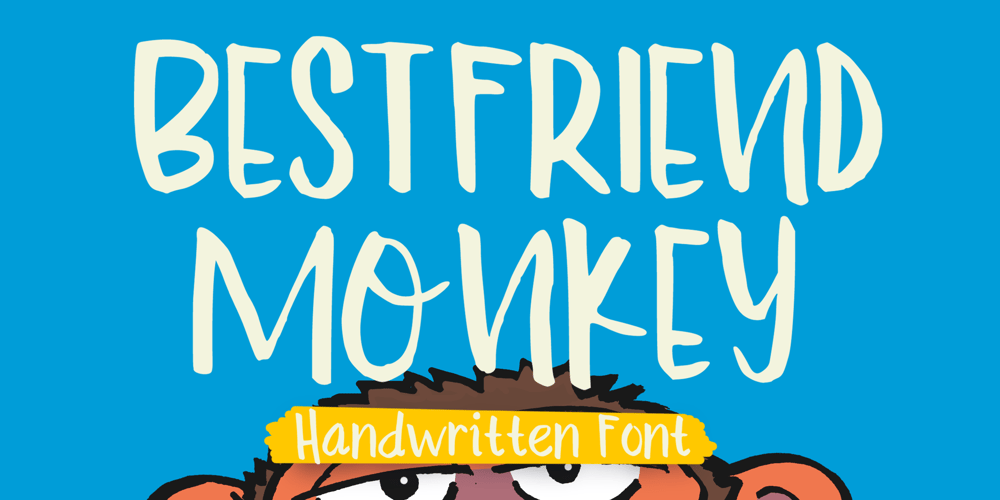
Bestfriend Monkey
Bestfriend Monkey font
Bestfriend Monkey Font Family was designed by Roland Hüse and published by Mvmet. Bestfriend Monkey contains 1 styles and family package options. Bestfriend Monkey is a fun and playful hand-lettered font, mixing modern calligraphy and contemporary art in the process of creation. It will elevate a wide range of design projects to the highest level. You can use this font for many design ideas such as stickers, t-shirt designs, amazing logo designs, magazine or book covers, comics, cartoon drawings, and many more. This font will add a super cool touch to your designs!